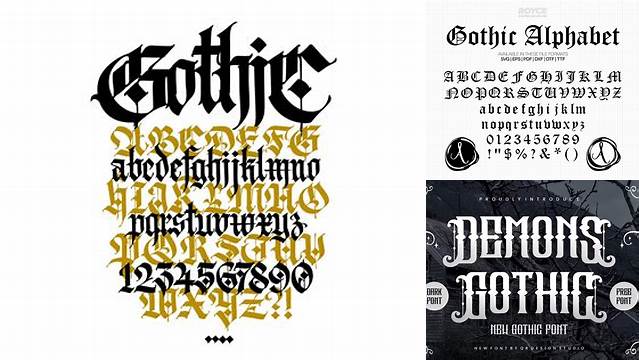
Free Gothic Fonts Online: Your Ultimate Guide
Hey guys! Are you on the hunt for some gothic fonts online free to spice up your projects? Whether you're designing a spooky Halloween poster, crafting an epic fantasy book cover, or just want to add a touch of old-world elegance to your work, gothic fonts are the way to go. But let's be real, finding high-quality fonts that don't cost a fortune can be a real challenge. That's where this guide comes in! We're diving deep into the world of free gothic fonts, exploring the best resources online, and giving you the lowdown on how to use these fonts effectively. So, buckle up and let's get gothic!
What are Gothic Fonts Anyway?
Before we jump into where to find them, let's make sure we're all on the same page about what gothic fonts actually are. The term "gothic font" can be a little confusing because it encompasses a wide range of styles. Generally, gothic fonts, also known as blackletter or Fraktur, are characterized by their bold, intricate letterforms, sharp angles, and dramatic strokes. Think of the fonts you see in old manuscripts, medieval documents, or even heavy metal band logos – that's the gothic vibe we're talking about. These fonts evoke a sense of history, mystery, and power, making them perfect for projects that need a touch of drama or old-world charm.
When we discuss gothic fonts online free, it's important to understand the historical context. Gothic script emerged in Western Europe during the Middle Ages, evolving from Carolingian minuscule. Its rise coincided with the Gothic architectural period, hence the name. The dense, angular letterforms were initially designed to maximize space on parchment, a precious commodity at the time. Different regional variations of gothic script developed, each with its own unique characteristics. Textura, Rotunda, Schwabacher, and Fraktur are just a few examples of these styles. Textura is the most formal and geometric, while Fraktur is characterized by its broken strokes and ornate flourishes. Understanding these nuances can help you choose the right gothic font for your project, ensuring it conveys the intended mood and message. For instance, a formal Textura font might be perfect for a historical document recreation, while a more playful Fraktur could work well for a beer label or a fantasy-themed design.
Where to Find the Best Free Gothic Fonts Online
Okay, now for the good stuff – where can you actually find these awesome gothic fonts online free? Luckily, the internet is a treasure trove of free resources, but it's also important to know where to look to avoid low-quality fonts or, even worse, fonts with restrictive licenses. Here are some of our favorite places to find free gothic fonts:
1. Google Fonts
Google Fonts is a fantastic starting point for any font search, and it doesn't disappoint when it comes to gothic styles. The best part about Google Fonts is that everything is completely free for commercial use, meaning you can use them in your projects without worrying about licensing issues. Plus, the fonts are high-quality and easy to embed on websites. Some great gothic options on Google Fonts include:
- UnifrakturCook: This font is a classic Fraktur style, perfect for adding a touch of traditional gothic flair.
- UnifrakturMagdeburg: Another Fraktur option, this one has a slightly more modern feel while still maintaining the gothic aesthetic.
- MedievalSharp: If you're looking for something that screams medieval history, MedievalSharp is an excellent choice. It's bold, sharp, and incredibly legible.
Google Fonts is an excellent starting point because it ensures you're getting a legally sound and technically robust font. The fonts are optimized for web use, meaning they'll load quickly and display correctly across different browsers and devices. The user interface is also incredibly intuitive, allowing you to easily preview the fonts, adjust the size and weight, and even see how they look with different text. Furthermore, Google Fonts offers a wide range of language support, making it a versatile choice for projects targeting international audiences. When exploring gothic fonts on Google Fonts, consider the specific nuances of each typeface. Some fonts may be better suited for headlines, while others might work well for body text. Experiment with different combinations to find the perfect pairing for your design.
2. Font Squirrel
Font Squirrel is another amazing resource for free fonts, and they have a great selection of gothic options. What sets Font Squirrel apart is their commitment to providing fonts that are 100% free for commercial use. They carefully vet each font to ensure it meets their standards, so you can download with confidence. You'll find a variety of gothic styles here, from elegant calligraphy-inspired fonts to more rugged, textured options. Be sure to browse their categories and use the search filters to narrow down your choices. You might discover hidden gems you wouldn't find anywhere else. Font Squirrel also provides valuable information about the font's designer and the licensing terms, giving you a clear understanding of how you can use the font in your projects. This transparency is crucial for avoiding copyright issues and ensuring you're using the fonts ethically. When exploring Font Squirrel, pay attention to the font's character set. Some free fonts may have limited character support, meaning they might not include all the letters, numbers, or symbols you need. Always test the font with your specific text before committing to it in your design.
3. DaFont
DaFont is a massive font archive with a huge selection of free fonts, including a ton of gothic options. It's a great place to find unique and quirky fonts, but it's important to pay attention to the licensing. While many fonts on DaFont are free for personal use, some may require a commercial license if you plan to use them in a project that will generate revenue. Always check the license information provided by the font designer before using a font from DaFont in a commercial project. DaFont's interface is straightforward, allowing you to easily browse by category, preview fonts, and download them directly. However, the sheer volume of fonts can be overwhelming, so it's helpful to use the search filters to narrow down your options. You can filter by style, popularity, and even the number of downloads. DaFont also has a useful forum where users can ask questions and share their experiences with different fonts. This community aspect can be invaluable for getting feedback and discovering new fonts. When using fonts from DaFont, it's a good practice to keep a record of the fonts you've downloaded and their respective licenses. This will help you stay organized and avoid any potential legal issues down the line.
4. 1001 Fonts
1001 Fonts is another popular font website with a wide range of free gothic fonts. Like DaFont, it's essential to check the license before using a font for commercial purposes. 1001 Fonts has a user-friendly interface with various filtering options, making it easy to find the perfect gothic font for your project. You can filter by style, weight, and even specific characteristics like whether the font has serifs or is suitable for display use. The site also features curated collections, which can be helpful for discovering fonts that work well together. 1001 Fonts provides previews of the fonts in different sizes and styles, allowing you to get a good sense of how they will look in your designs. The site also has a section for font bundles, which can be a cost-effective way to acquire a large collection of fonts. However, always carefully review the licensing terms for each font bundle before purchasing it. When exploring 1001 Fonts, consider the overall aesthetic of your project and choose a font that complements it. A gothic font can add a touch of elegance or drama, but it's important to ensure it doesn't clash with the other elements of your design.
5. Creative Fabrica (Freebies Section)
Creative Fabrica is a subscription-based platform for designers, but they also have a freebies section with a rotating selection of fonts, graphics, and other design resources. They often include some fantastic gothic fonts in their freebies, so it's worth checking regularly. The catch is that the freebies are usually available for a limited time, so if you see something you like, grab it while you can! Creative Fabrica's freebies section is a hidden gem for designers looking to expand their font library without breaking the bank. The quality of the free fonts is generally very high, and they often include commercial licenses, making them suitable for a wide range of projects. Creative Fabrica also offers a subscription service that provides access to a vast library of fonts, graphics, and templates. If you're a professional designer or work on a lot of projects, the subscription might be a worthwhile investment. When browsing Creative Fabrica's freebies, pay attention to the terms of the license. Some free fonts may have restrictions on the types of projects you can use them in, or the number of times you can download them. Always read the fine print before using a free font in a commercial project.
Conclusion: Your Gothic Font Adventure Awaits!
So there you have it, guys! A comprehensive guide to finding and using gothic fonts online free. With so many awesome resources available, there's no excuse not to add some gothic flair to your next project. Just remember to pay attention to licensing, use the fonts sparingly, and have fun experimenting. Now go forth and create some epic designs! We hope this guide has been helpful in your quest for the perfect gothic font. Remember, the world of typography is vast and exciting, so keep exploring and discovering new fonts that inspire you. And don't forget to share your creations with us – we'd love to see what you come up with! Happy designing!